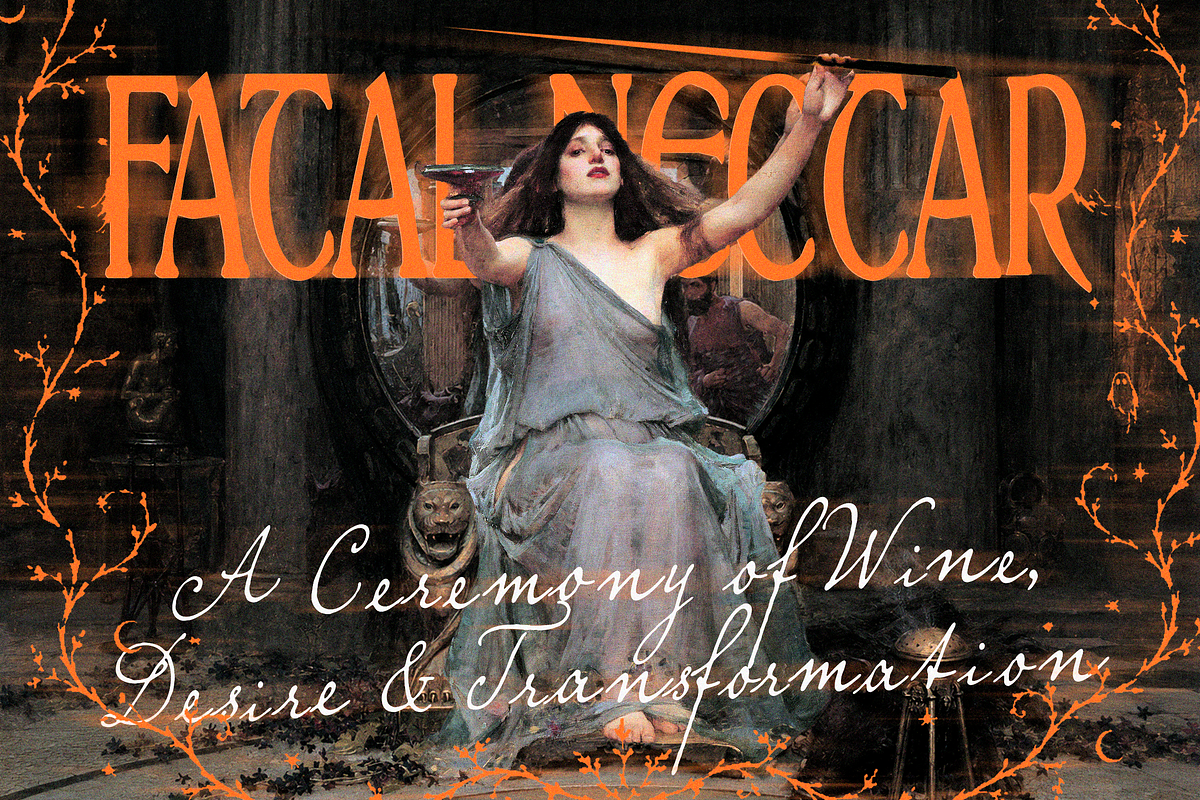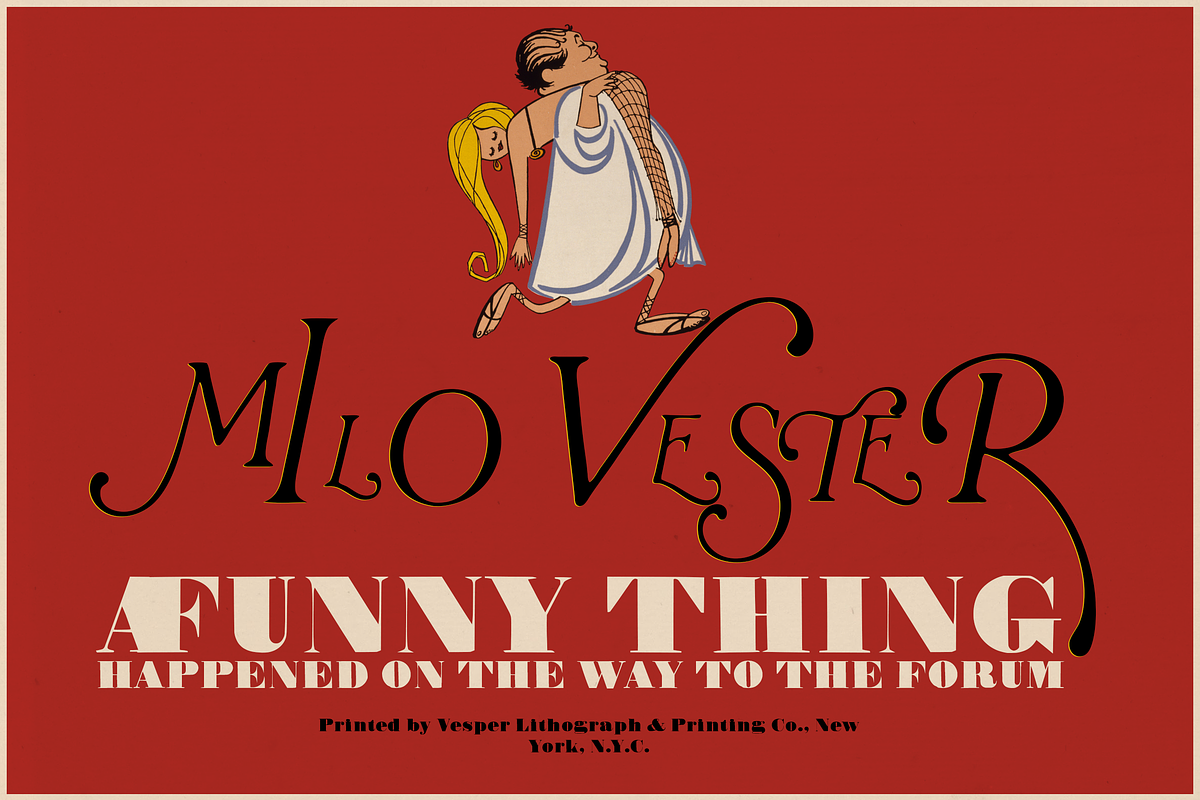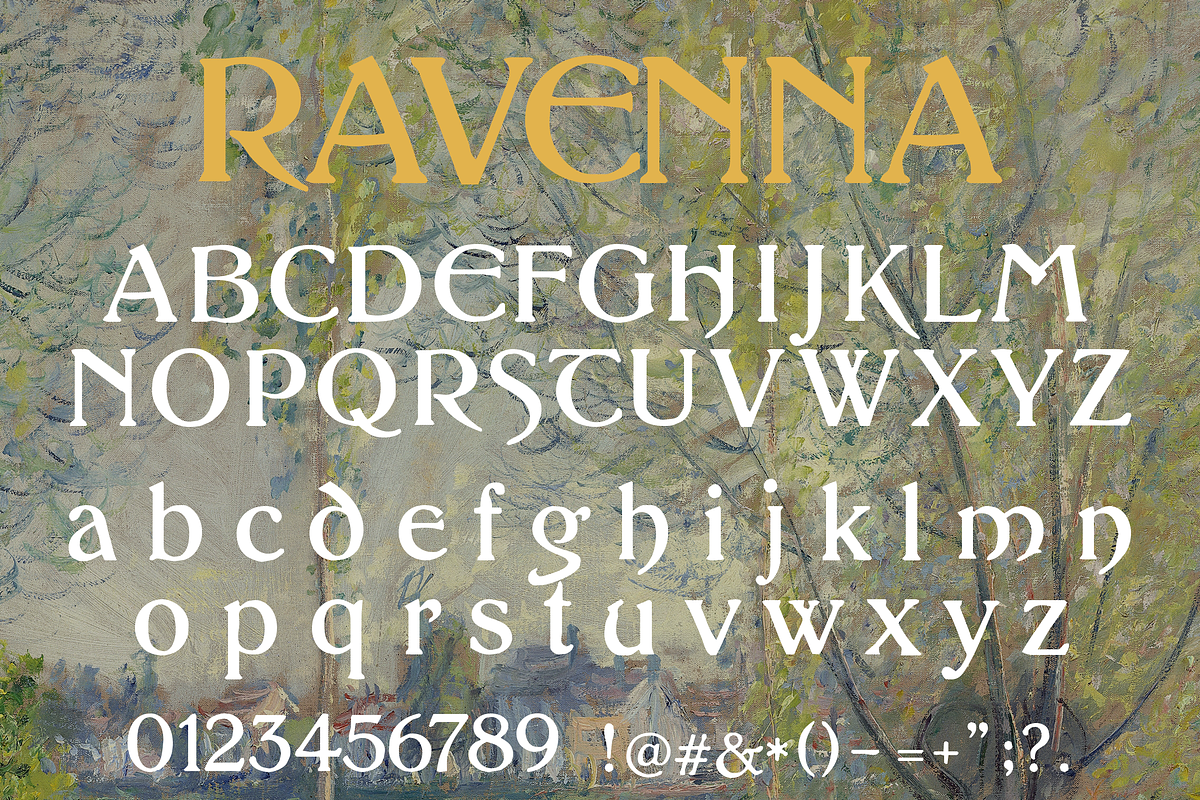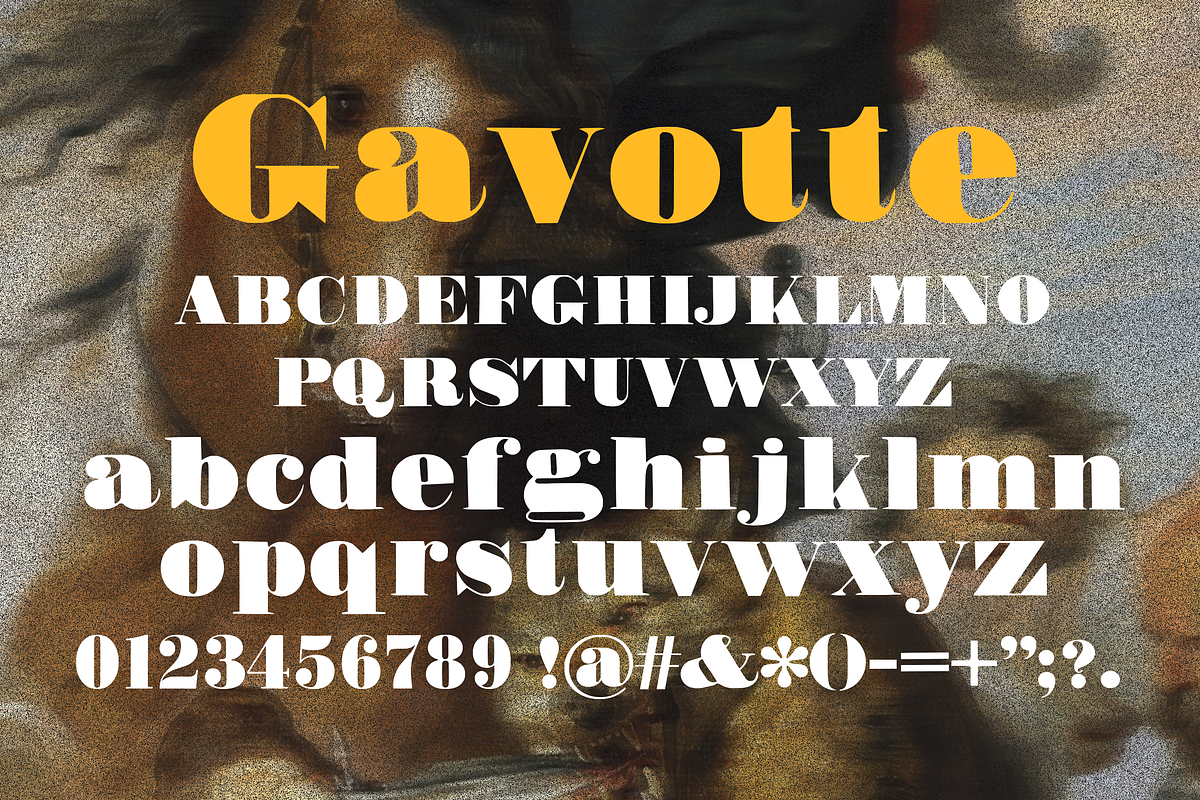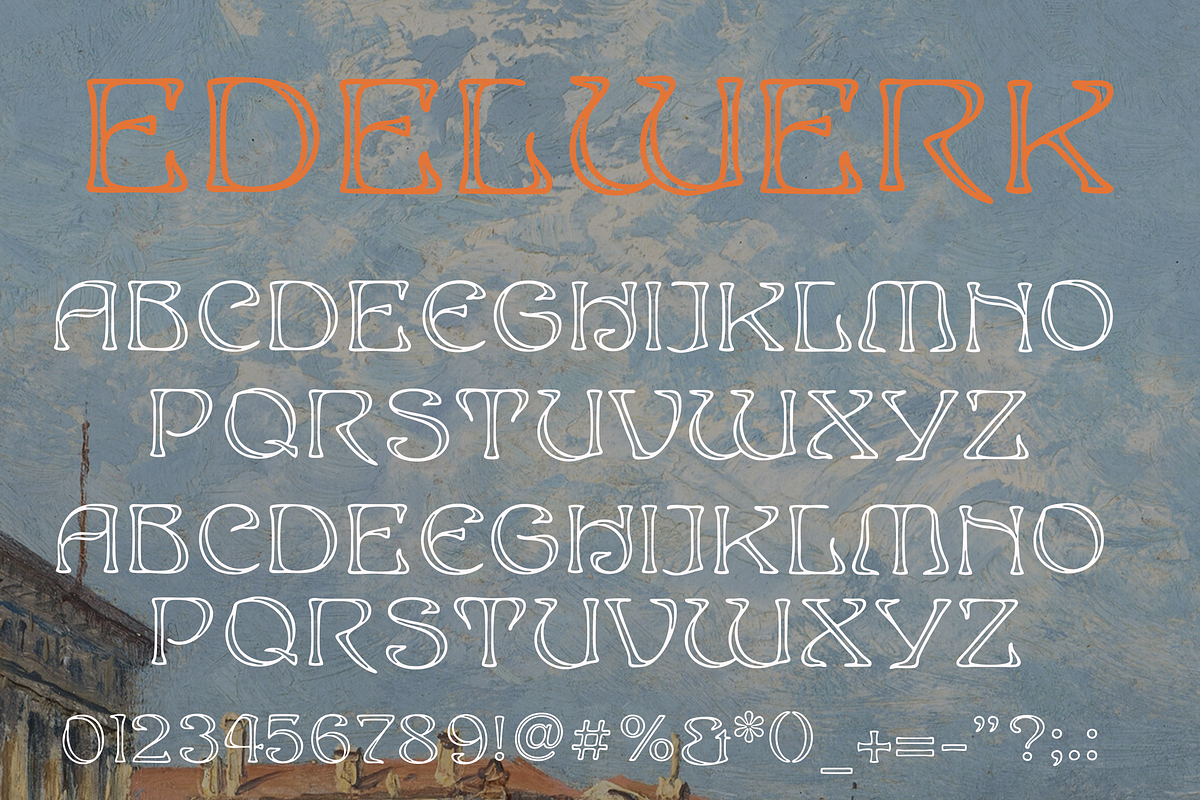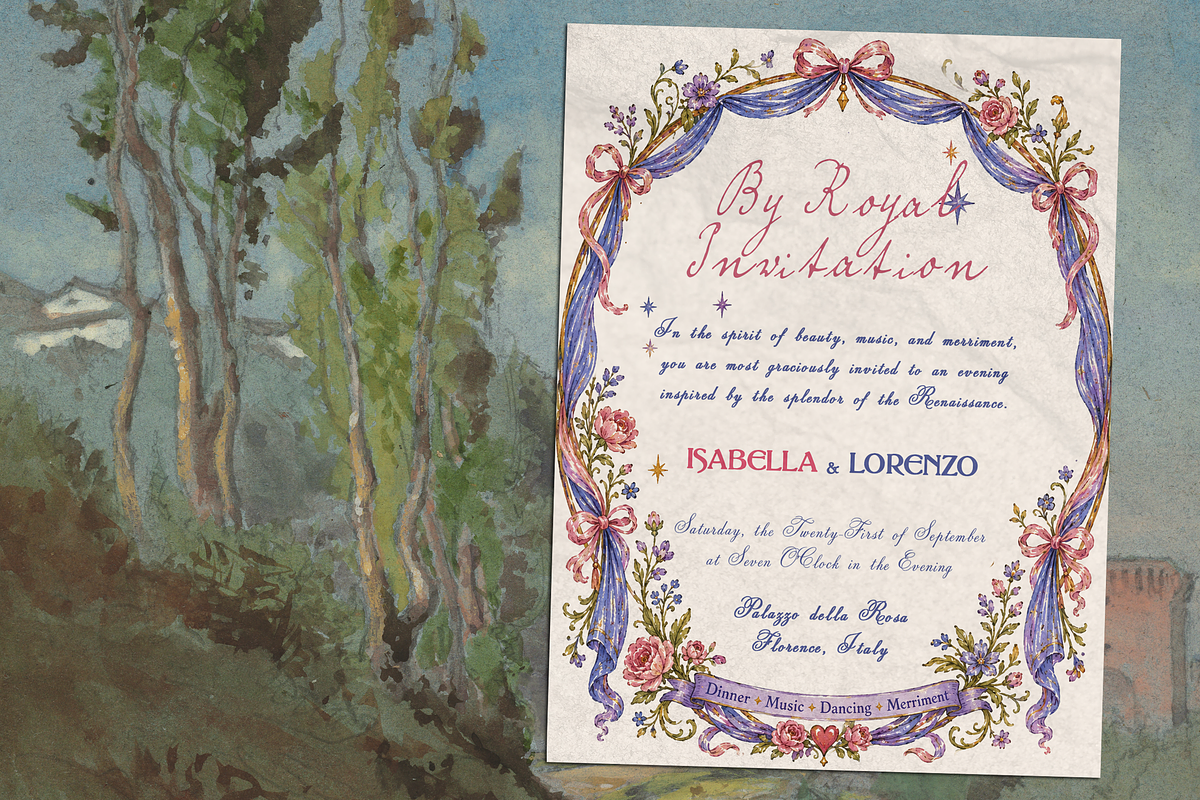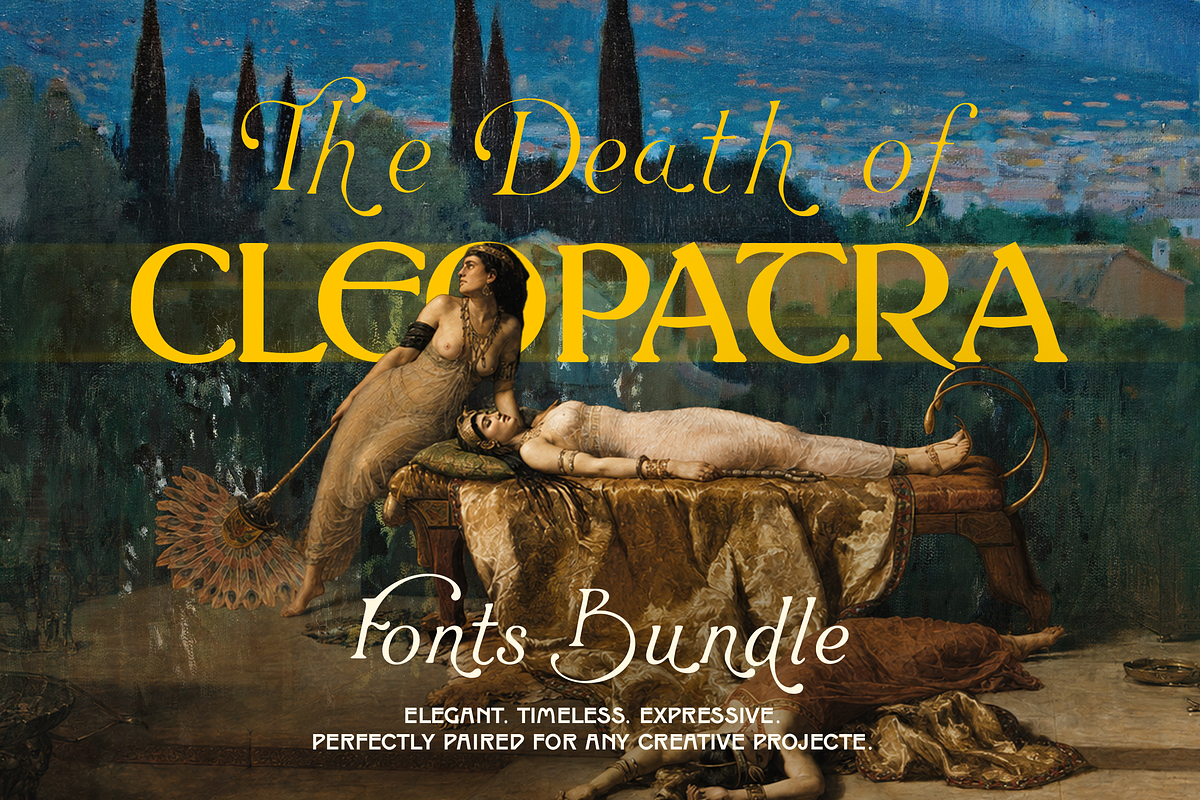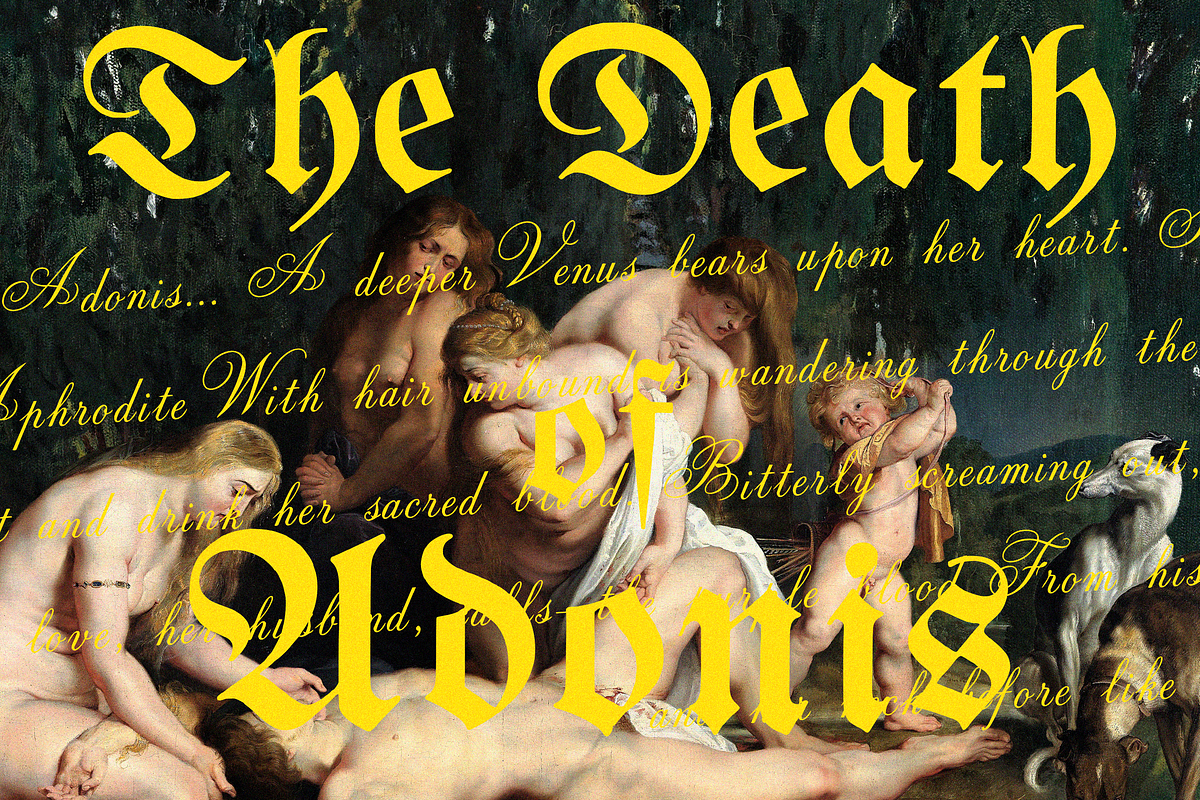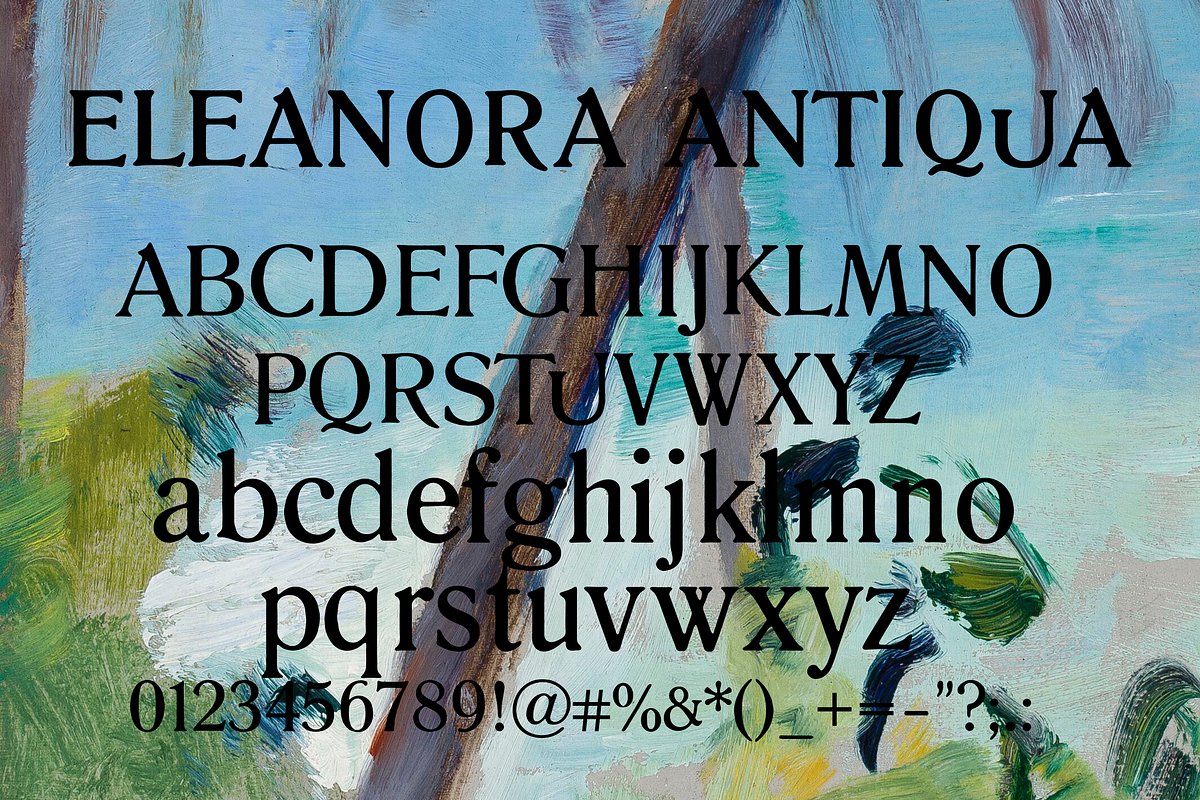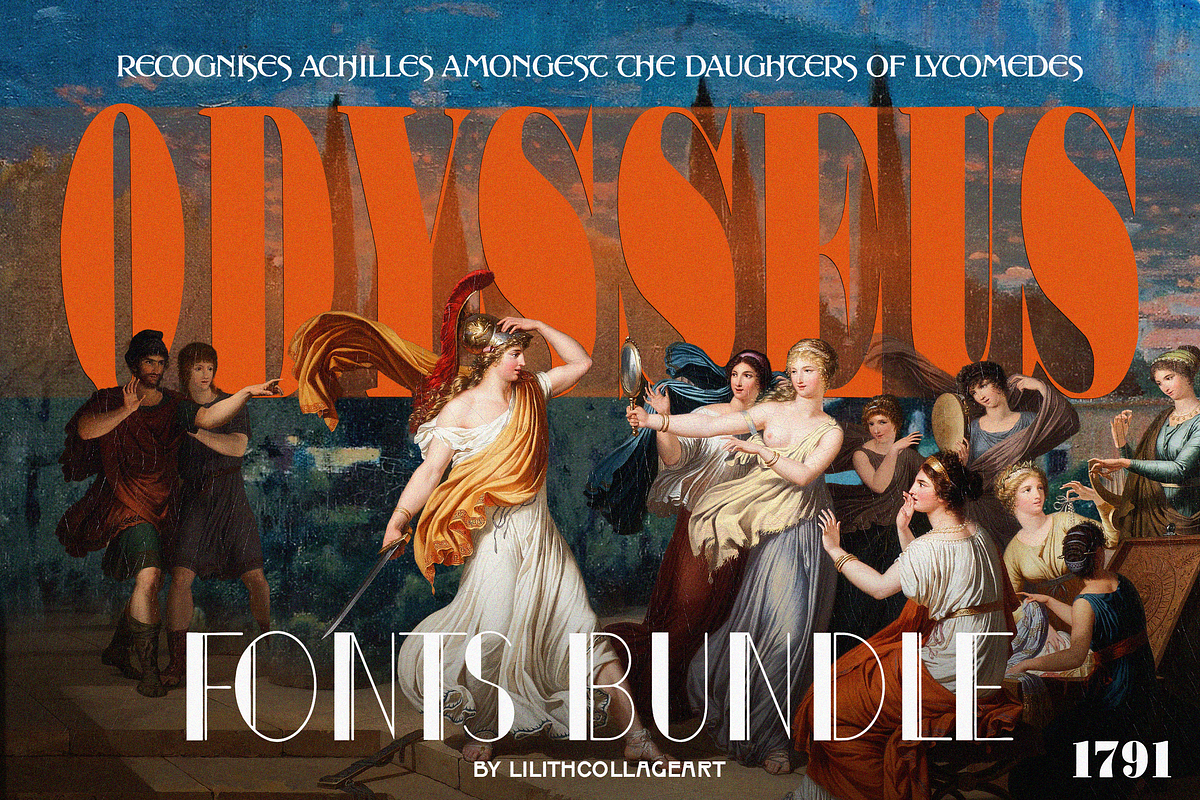
The Painted Muse - Fonts Bundle
Curated Font Collection for Timeless, Expressive Design
After months of work on this project, I’m finally so happy to share this collection of 12 carefully crafted typefaces a font bundle created from my love for historical lettering, expressive typography, classical art, and unusual letterforms.
This bundle moves between romantic calligraphy, historical-inspired lettering, expressive serifs, experimental forms, and bold display typography. Each font carries its own personality, making the collection versatile enough for editorial design, book covers, branding, invitations, packaging, posters, art prints, fashion projects, album artwork, stationery, and more.
Rather than following one single style, this collection was made to feel like a small typographic archive — a mix of elegant, dramatic, classical, artistic, and unconventional letterforms that can be used individually or paired together.
Fonts Included
A Tender Goodbye
ARCFORM
Beethoven
Dahlia
Edelwerk
Eleanora Antiqua
Gavotte
Keystone
Melencolia
Ravenna
RUPERT
Melencolia
Several of the typefaces also include multiple versions or stylistic variations, giving you additional possibilities for creating unique layouts and combinations.
From the delicate character of A Tender Goodbye and Gavotte, to the sculptural forms of Ravenna, the historical feeling of Beethoven and Eleanora Antiqua, and the bold personalities of ARCFORM, Keystone, and RUPERT, this collection was designed to give you a wide range of typographic moods within one bundle.
12 fonts. Multiple styles. One expressive collection.